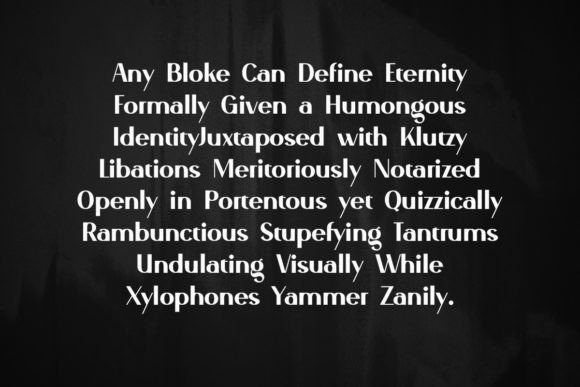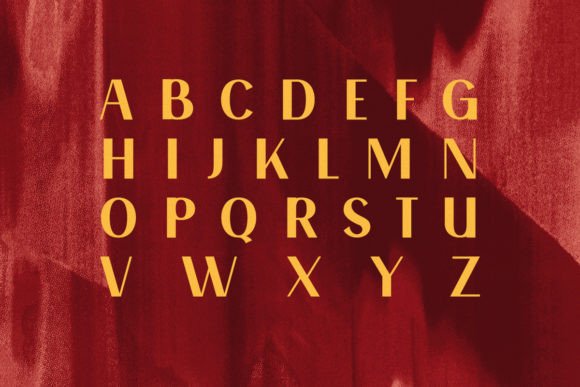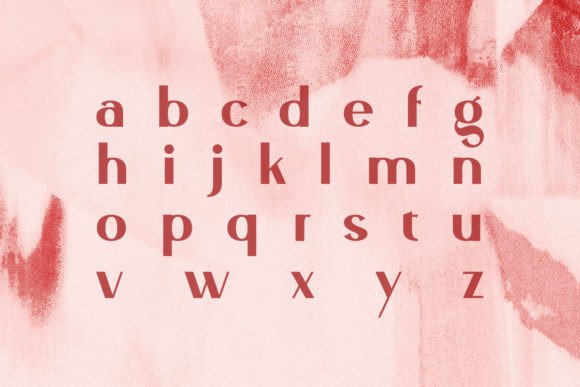
Introduction to Loly Lane Font
Loly Lane is a modern and bold sans serif display font.
This font evokes a strong, confident personality with striking details on each side of the lettering Whether you’re creating a vintage-inspired project or want to add a bold classic look to your visuals, this font is a perfect choice.
Why Choose Loly Lane Font?